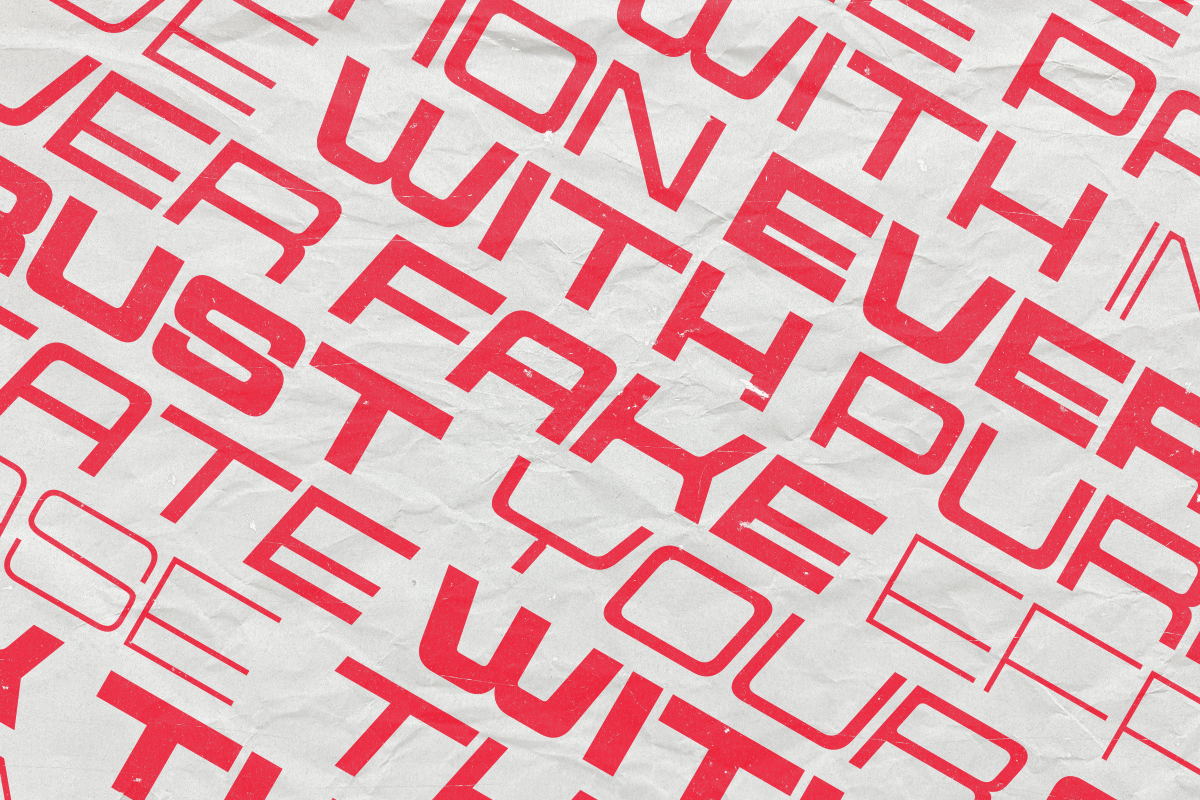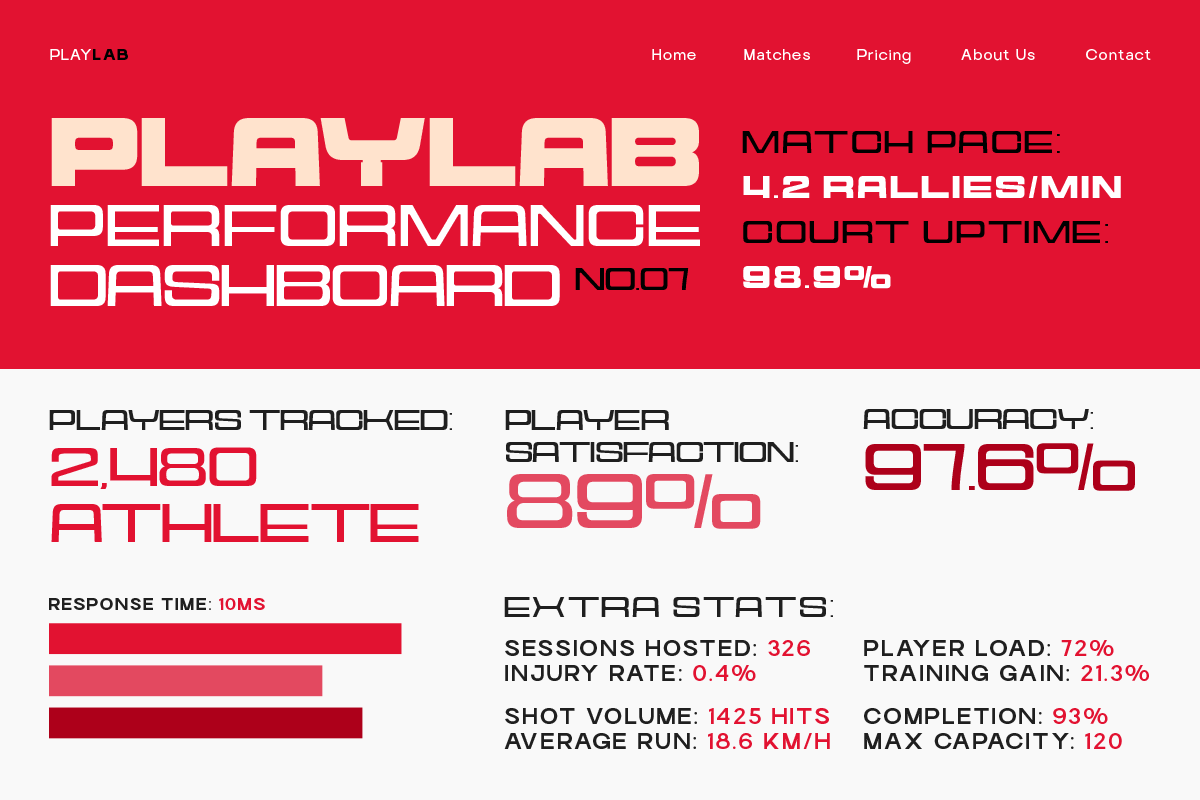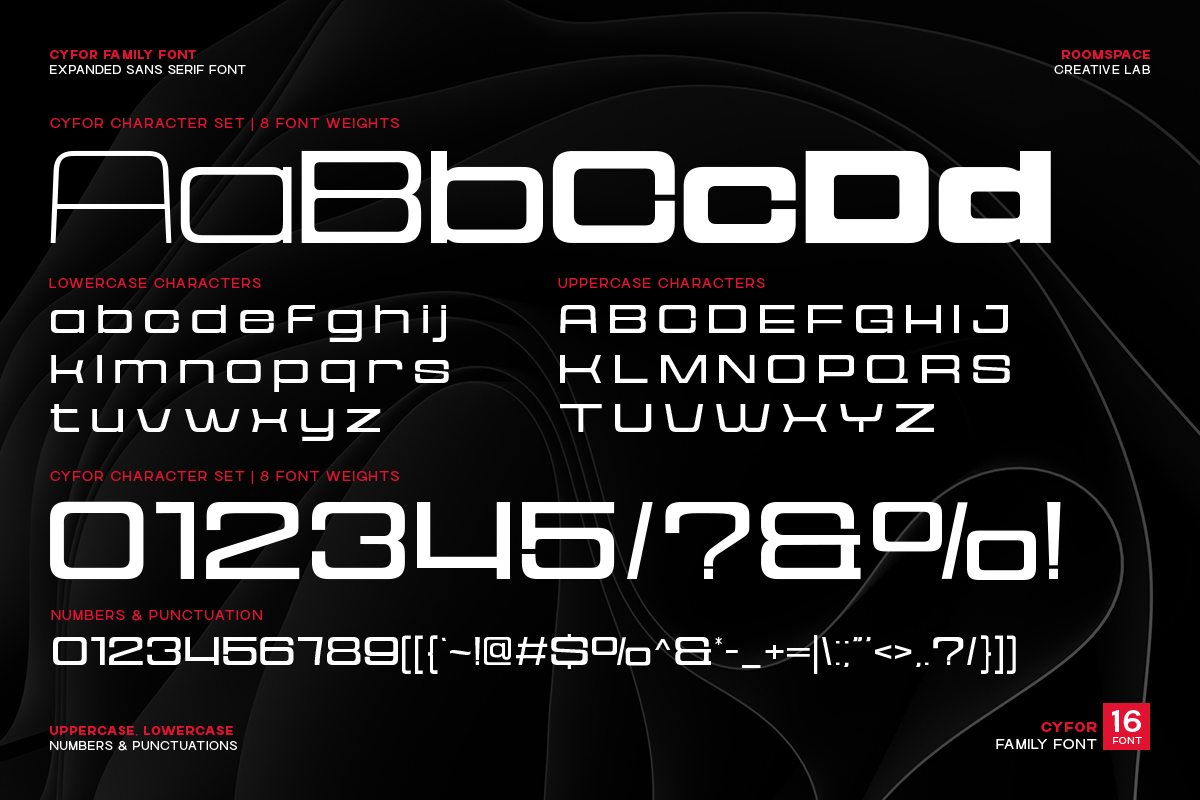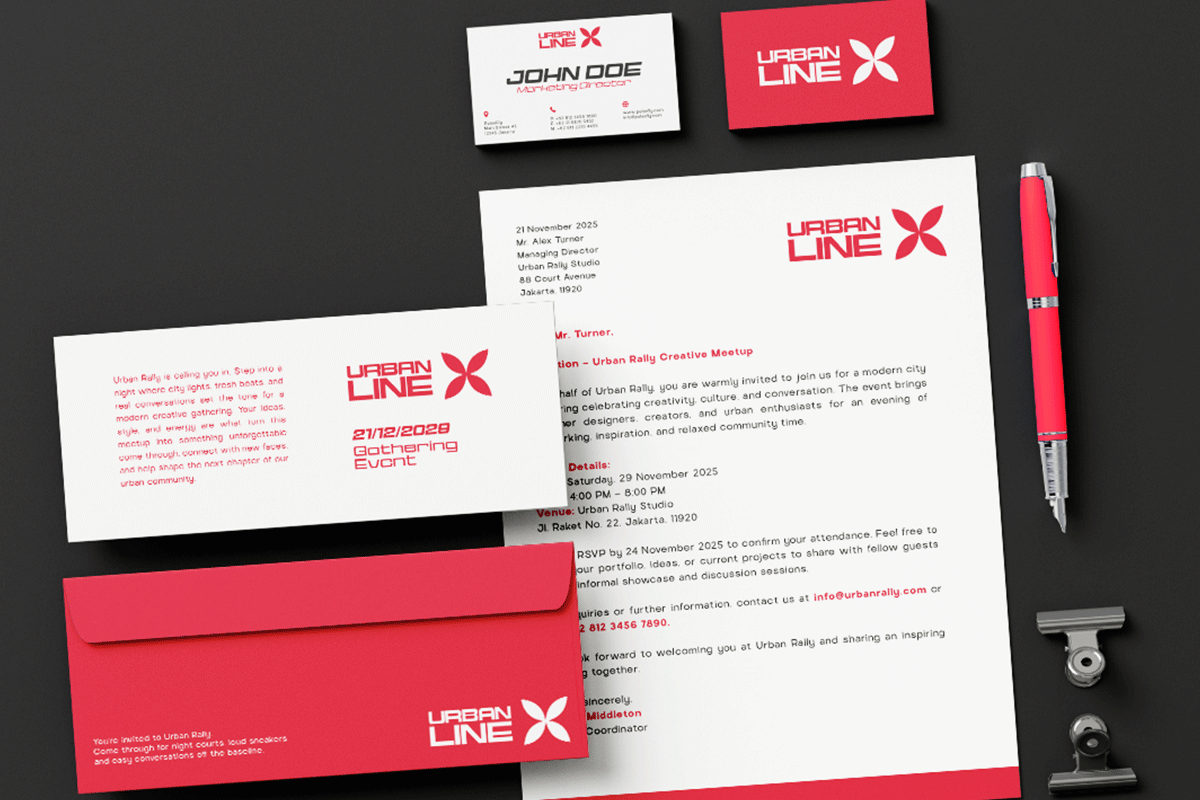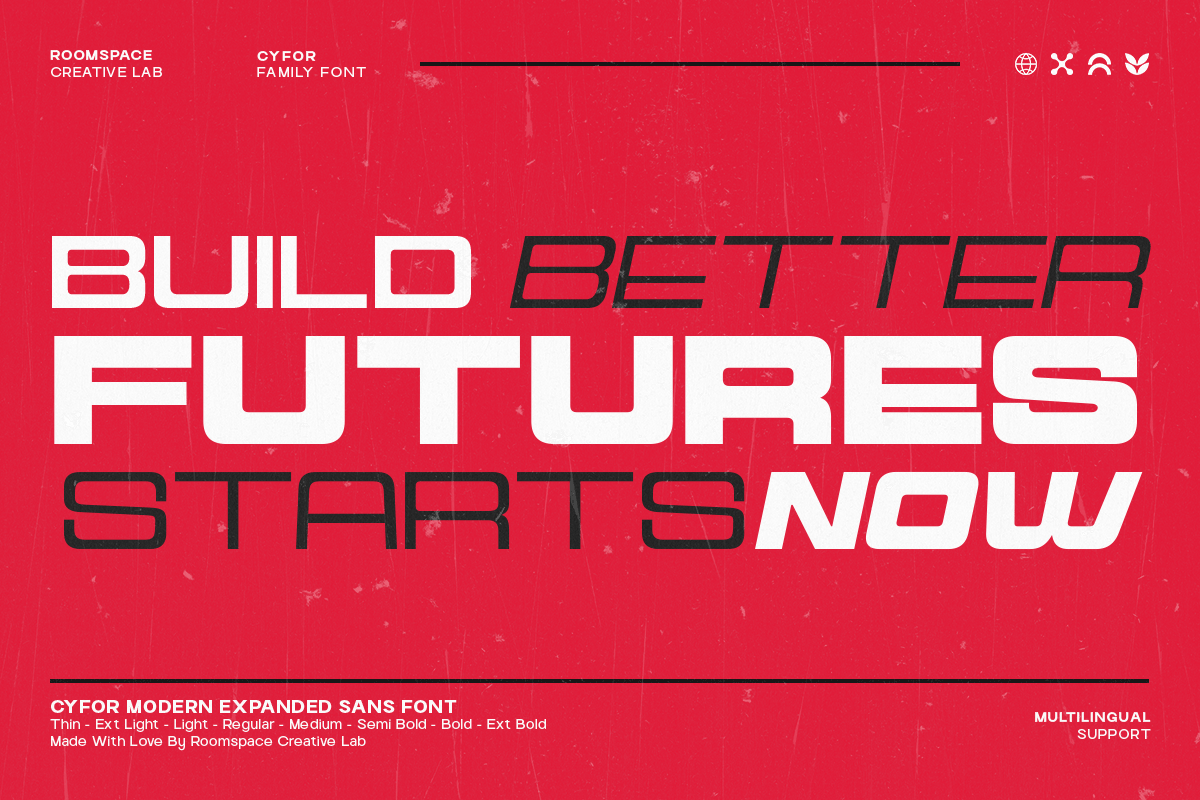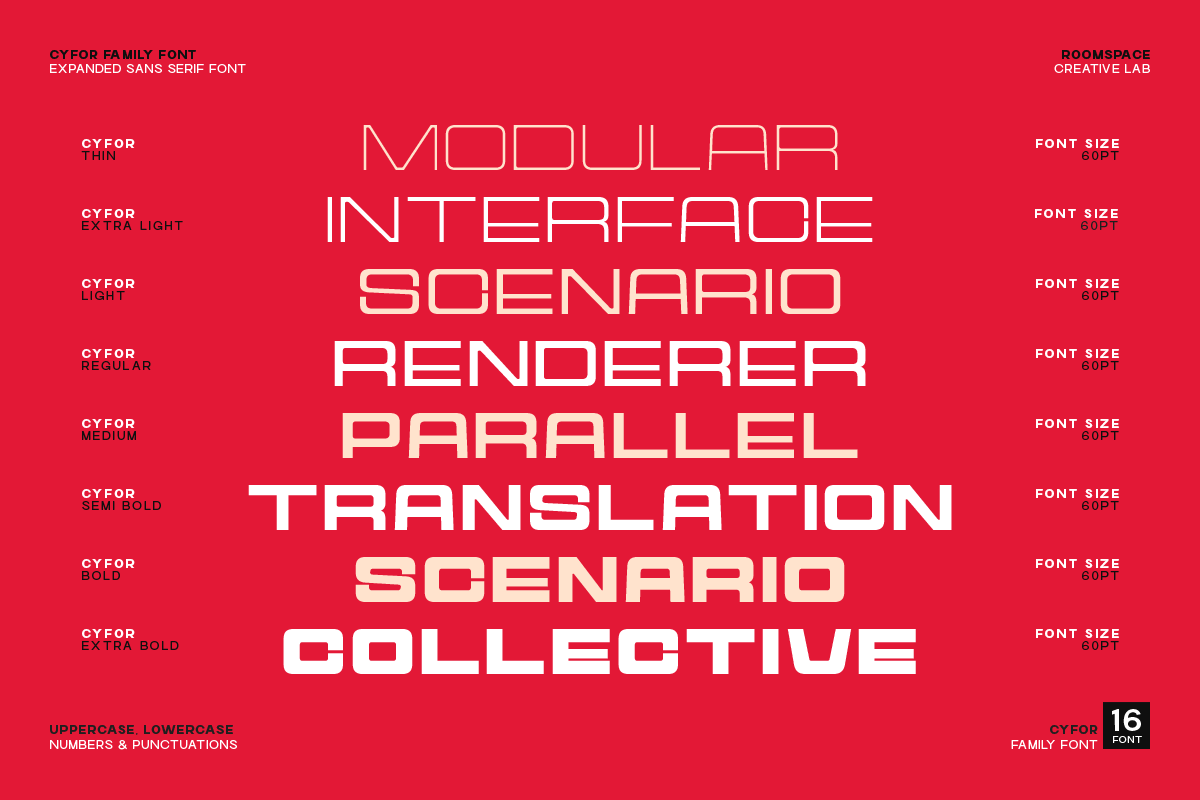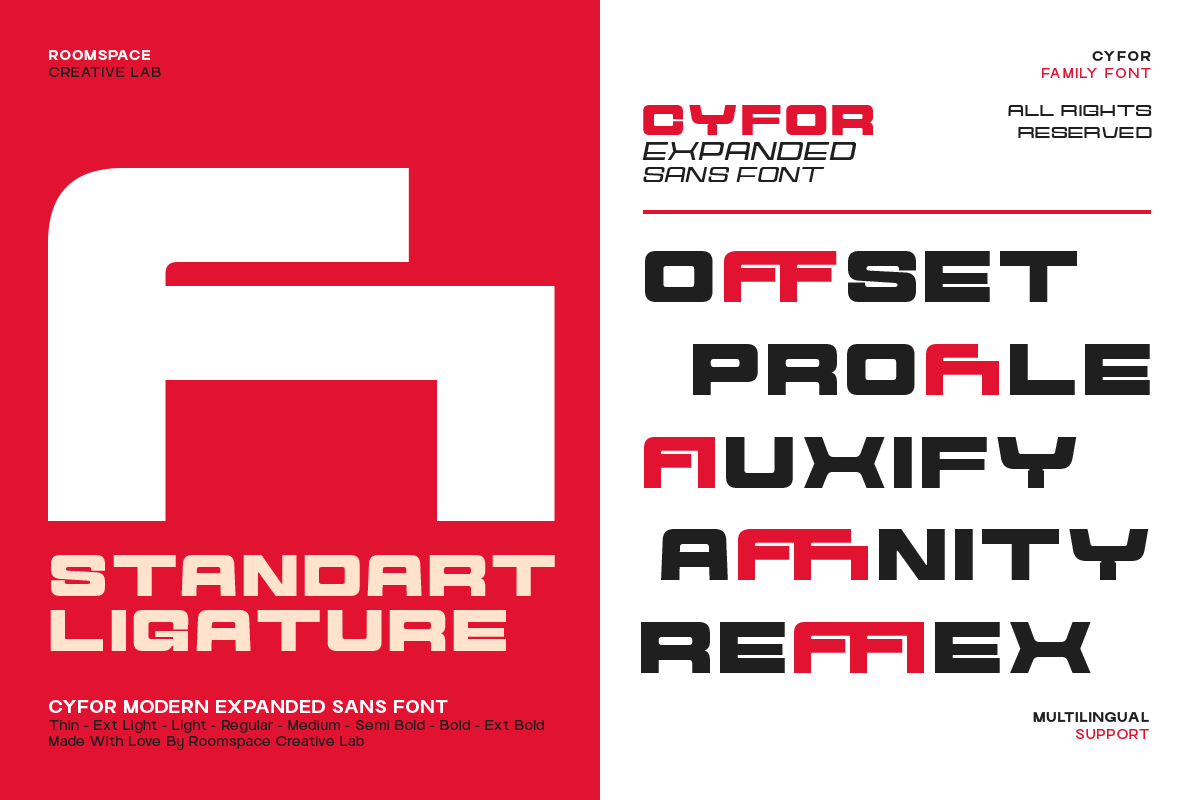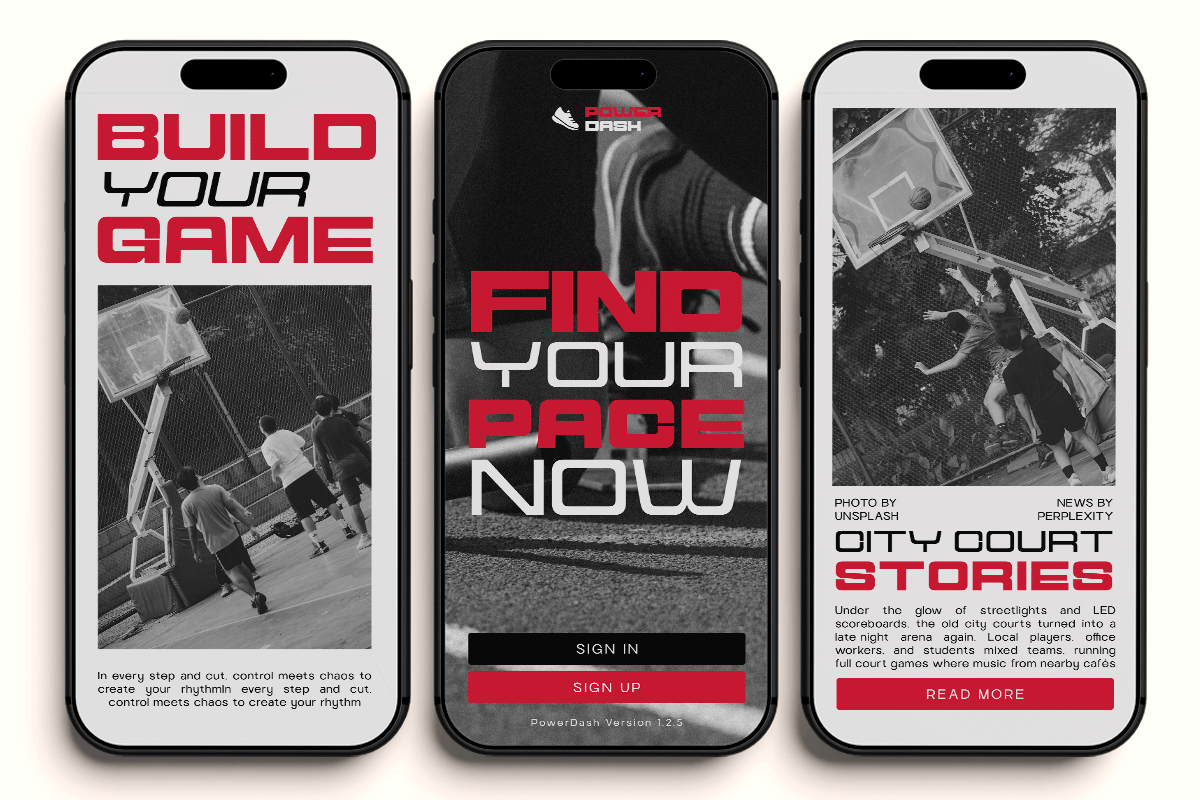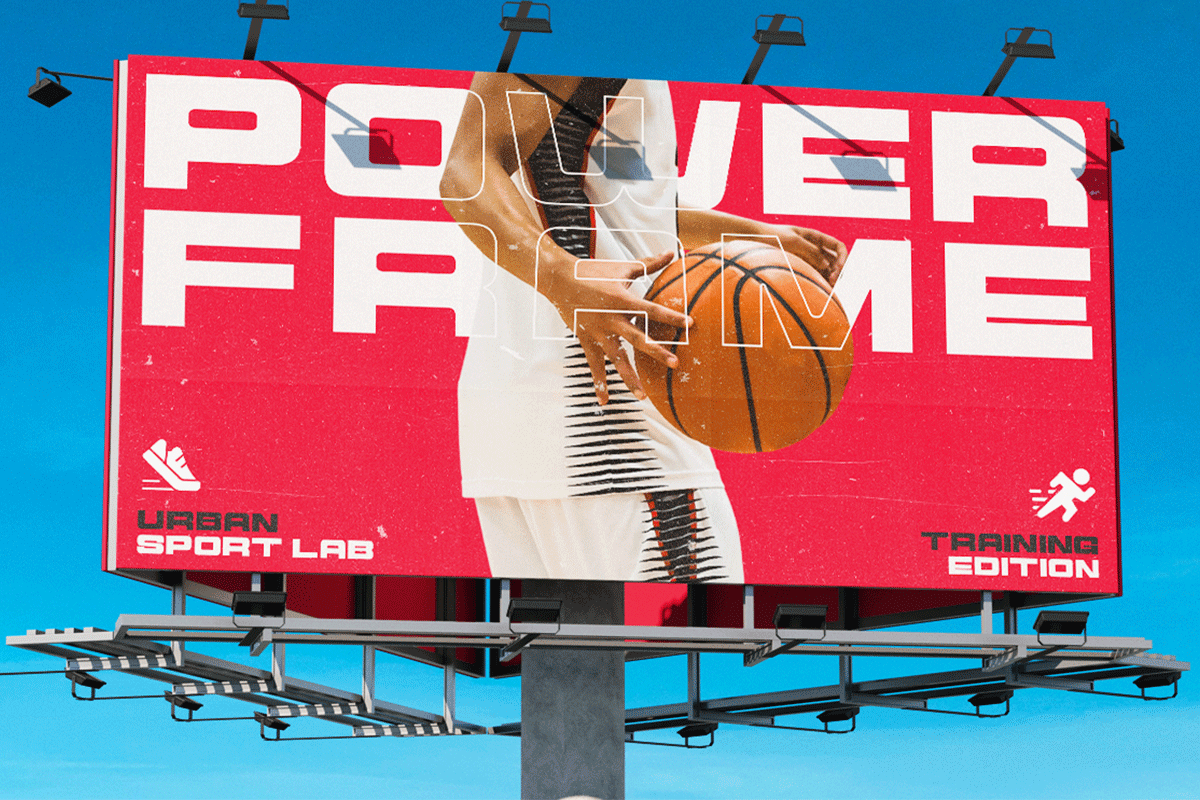
Cyfor – A Modern Expanded Sans Serif
A bold expanded sans-serif built for futuristic branding, esports, and modern digital design.
Cyfor is a modern expanded sans-serif font family crafted with bold futuristic energy. Its wide geometric structure and clean curves bring a powerful visual presence to logos, posters, websites, and tech-driven layouts. Designed with 16 carefully built weights, Cyfor adapts beautifully to modern digital aesthetics from sci-fi interfaces to minimalist branding systems.
- 16 fonts (Thin to Extra Bold)
- Expanded geometric shapes
Perfect For : Tech branding, esports identity, posters, product packaging, UI/UX design, website hero text, digital campaigns, futuristic layouts, and logo design.